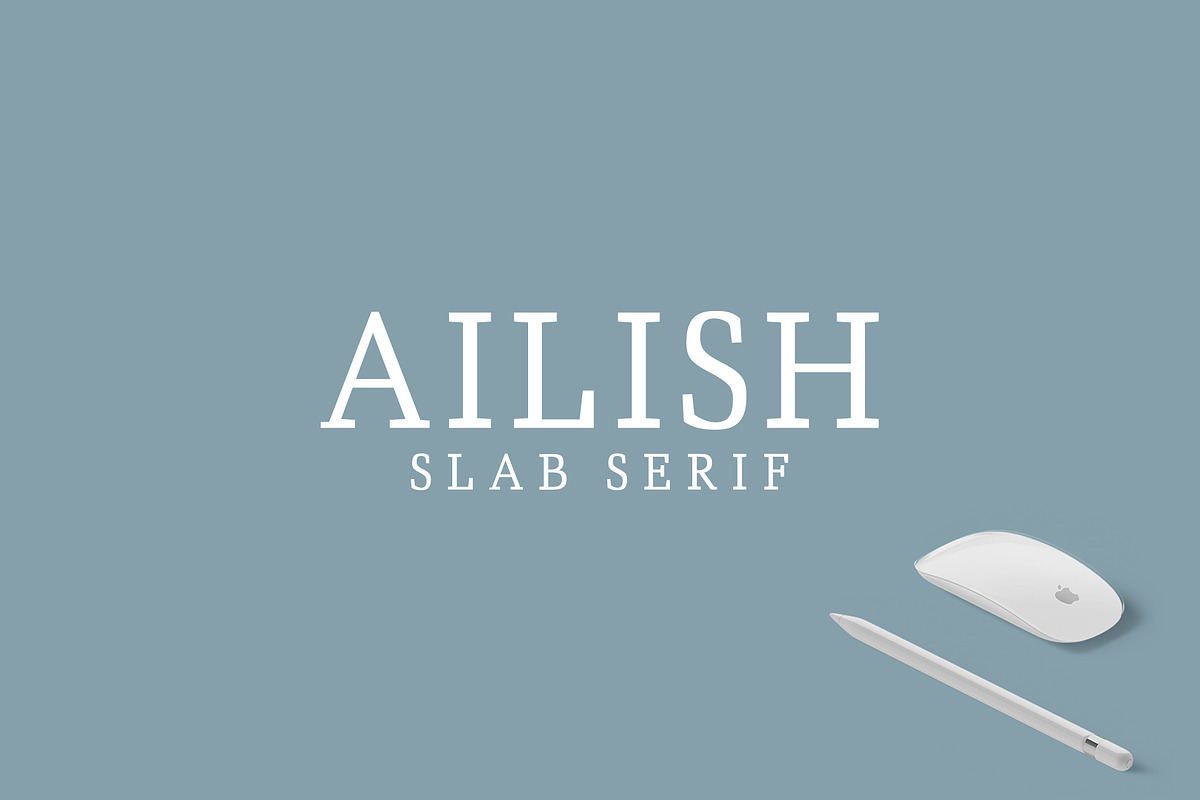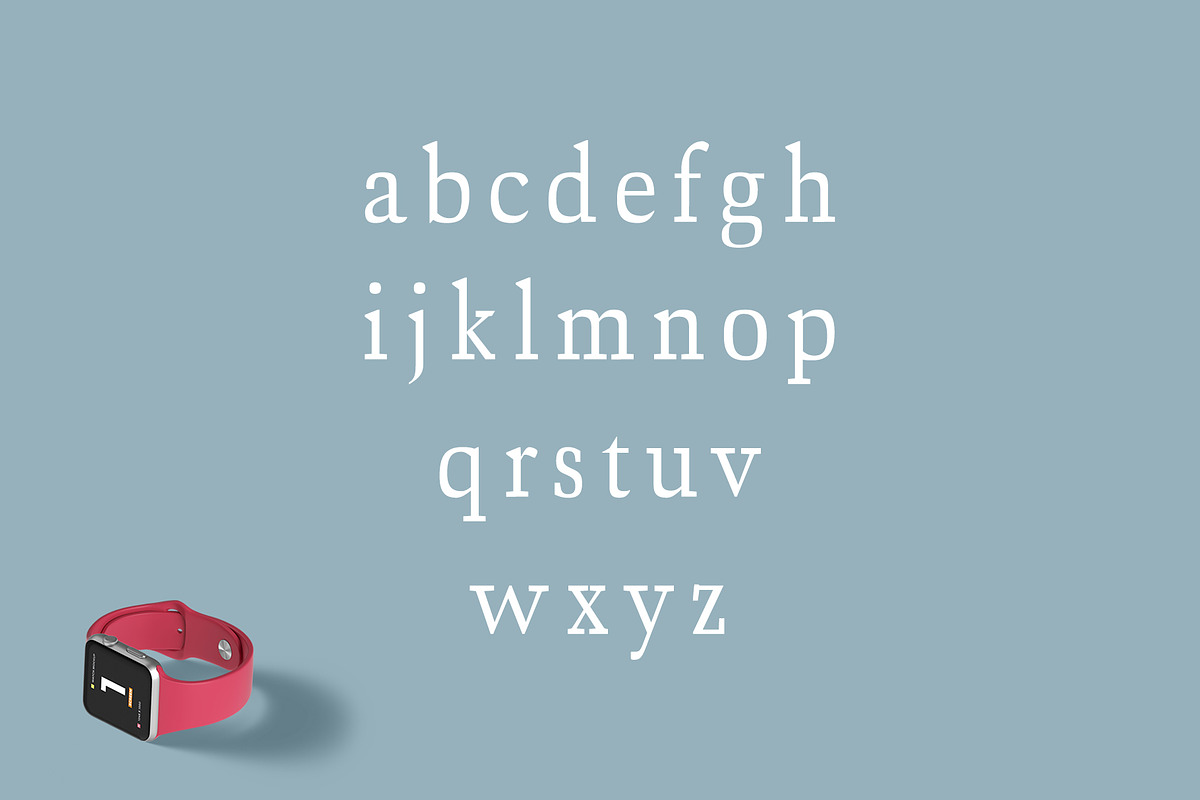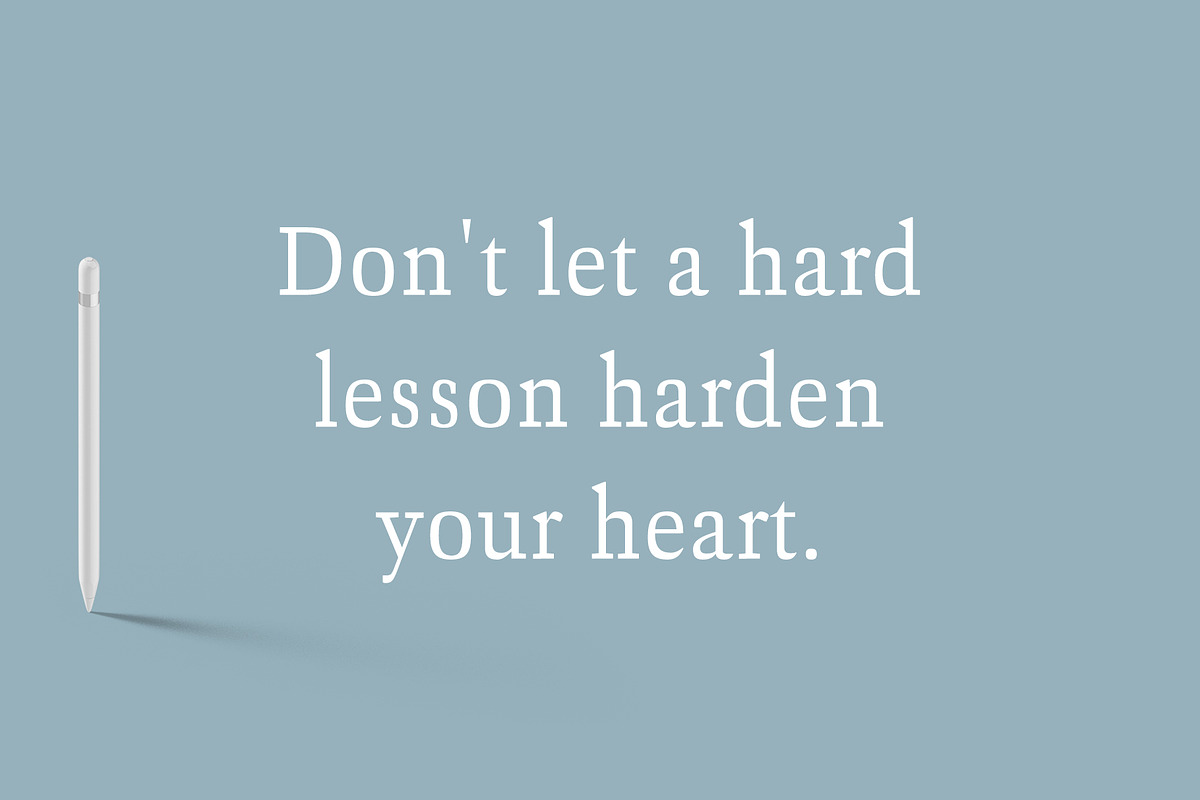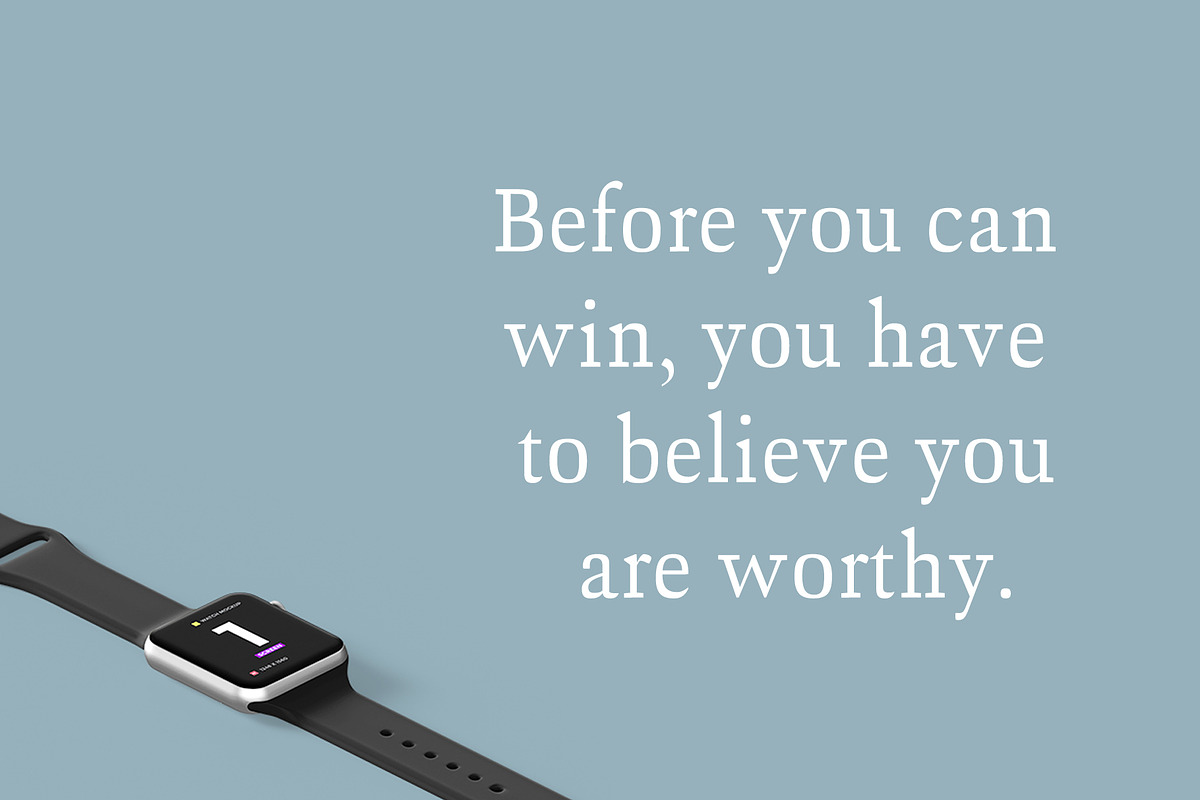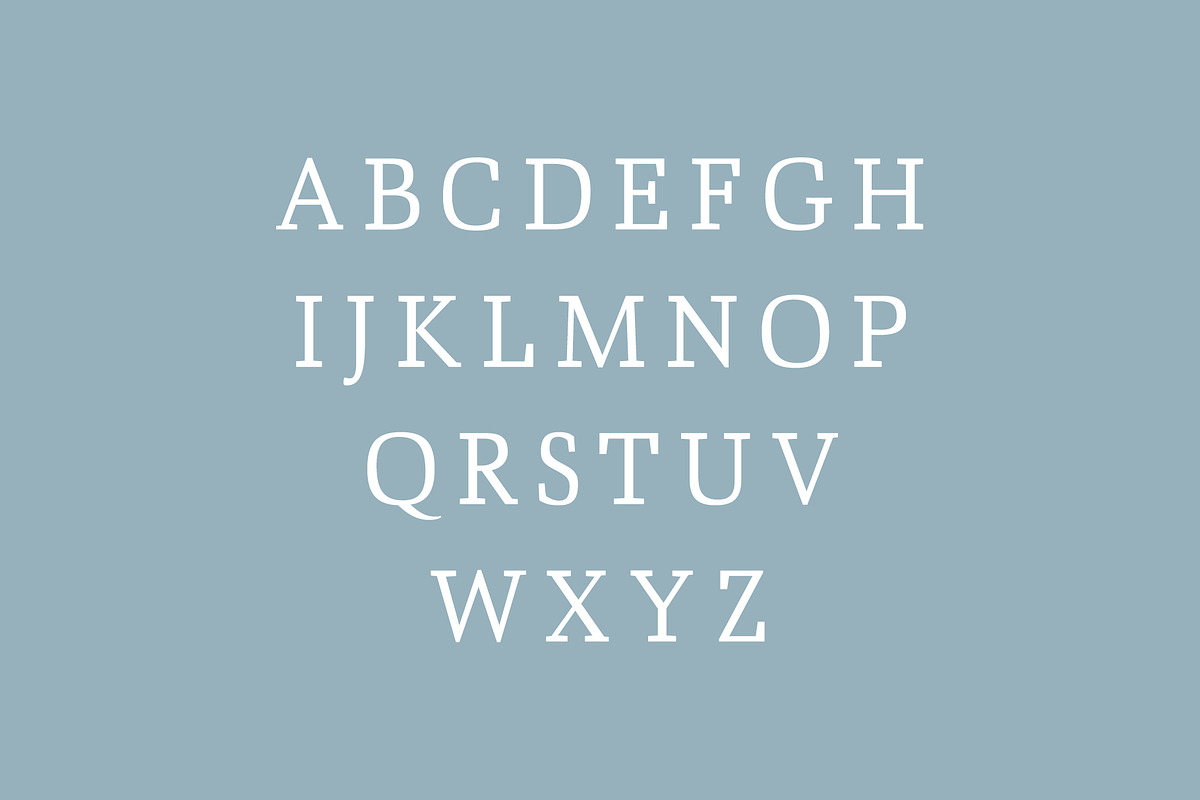
Ailish Slab Serif Font Pack
Ailish is a modern but eye-catching slab serif font. It's a very versatile font that works great in large and small sizes. Ailish comes in three weights with multilingual support. Ailish is perfect for packaging, presentations, logo, headlines, lettering, posters, branding, quotes, titles, magazines headings, web layouts, advertising, invitations, packaging design, books, and nearly any creative design.
Regular, Light and Thin Weights
Ailish Font Features:
Non English Characters ( Latin Supplement + Latin Extended A )